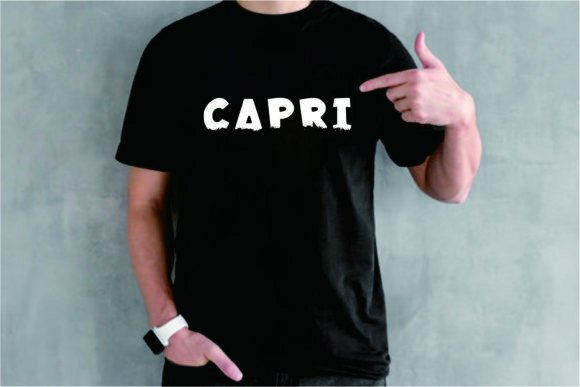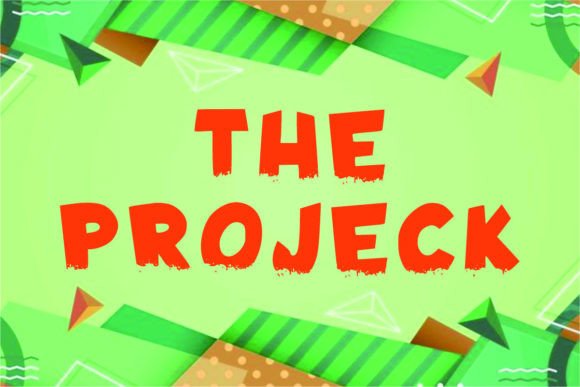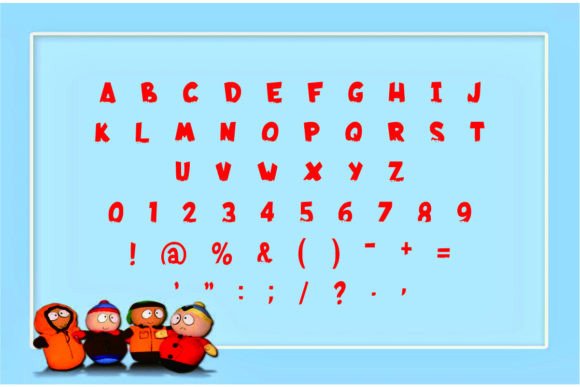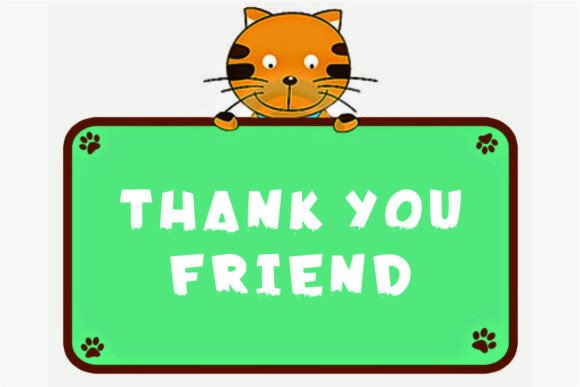
Introducing Capri Font: A Brush Style Display Font for Creative Splashes
Are you a designer or crafter looking for a unique and eye-catching font to add a personal touch to your creative projects? Look no further than Capri Font, a brush style display font that represents splashes of creativity and fun. In this article, we’ll dive into the features and benefits of Capri Font, and explore the many ways you can use it to bring your ideas to life.
What is Capri Font?
Capri Font is a brush style display font that is designed to evoke the feeling of splashes and playful movements. With its unique and irregular strokes, Capri Font adds a touch of whimsy and personality to any design project. Whether you’re working on a logo, t-shirt design, or background design for food and drink packaging, Capri Font is the perfect choice for adding a creative and eye-catching element.
Key Features of Capri Font
• Brush Style: Capri Font features a unique brush style that gives it a hand-painted and organic feel.
• Display Font: Designed specifically for display purposes, Capri Font is perfect for headlines, titles, and short phrases.
• Splashy and Playful: The irregular strokes and splashes in Capri Font add a playful and creative touch to any design.
• Versatile: Capri Font can be used for a wide range of design projects, from logos and t-shirts to food and drink packaging.
Uses for Capri Font
So, how can you use Capri Font in your design projects? Here are just a few ideas to get you started:
• T-Shirt Designs: Add a splash of personality to your t-shirt designs with Capri Font. Perfect for quotes, phrases, or logos.
• Logos: Create a unique and eye-catching logo for your business or brand with Capri Font.
• Food and Drink Background Designs: Add a playful touch to your food and drink packaging with Capri Font. Perfect for labels, menus, or advertisements.
• Social Media Graphics: Use Capri Font to create eye-catching social media graphics, such as Facebook posts, Instagram stories, or Twitter headers.
• Invitations and Party Decor: Add a personal touch to your invitations, party decor, or event branding with Capri Font.
Tips for Using Capri Font
Here are a few tips for getting the most out of Capri Font:
• Experiment with Colors: Try pairing Capri Font with different colors to create a unique and eye-catching effect.
• Play with Size: Experiment with different font sizes to create visual interest and hierarchy in your design.
• Add Texture: Consider adding texture or patterns to your design to complement the brush style of Capri Font.
• Keep it Simple: Don’t be afraid to keep your design simple and clean. Capri Font is designed to be a focal point, so let it shine!
Capri Font is a versatile and creative brush style display font that is perfect for designers and crafters looking to add a personal touch to their projects. With its unique and playful splashes, Capri Font is sure to bring a smile to your audience’s face. Whether you’re working on a logo, t-shirt design, or food and drink packaging, Capri Font is the perfect choice for adding a creative and eye-catching element. So why wait? Add Capri Font to your favorite creative ideas and see how it comes to life!